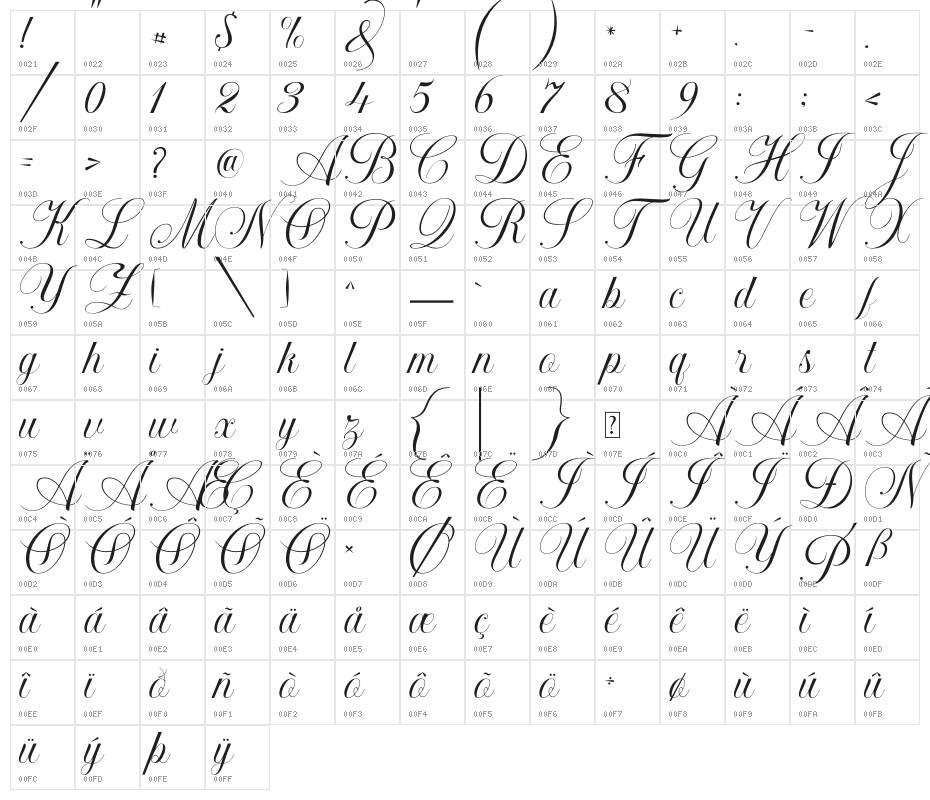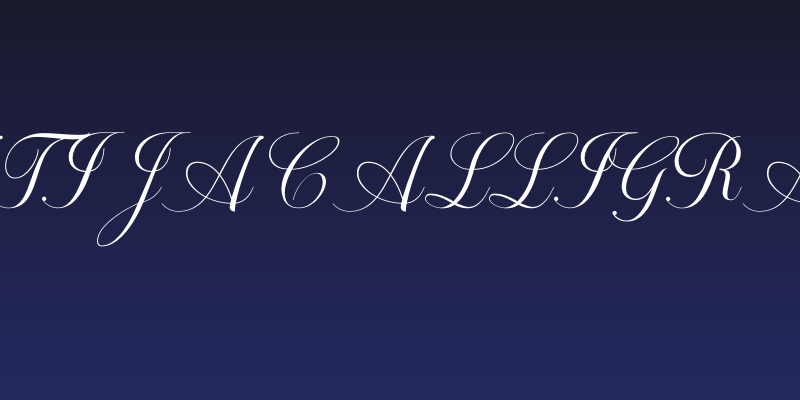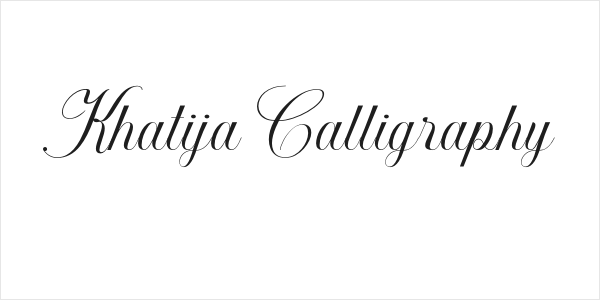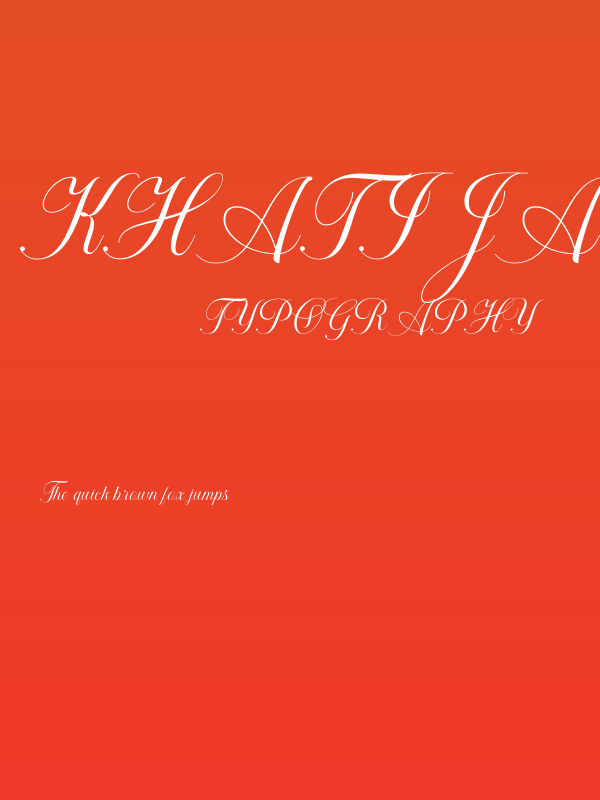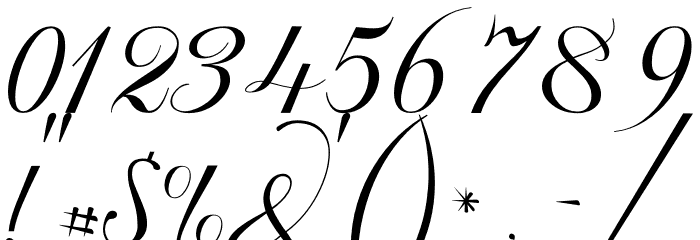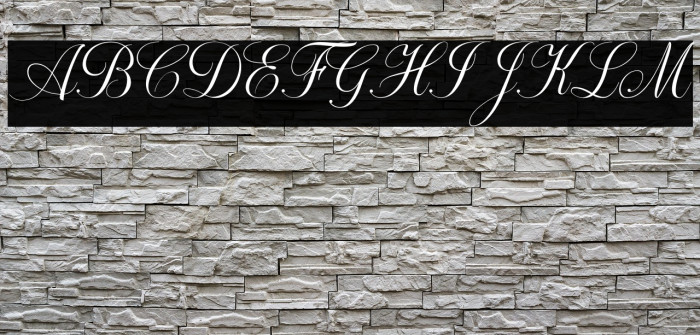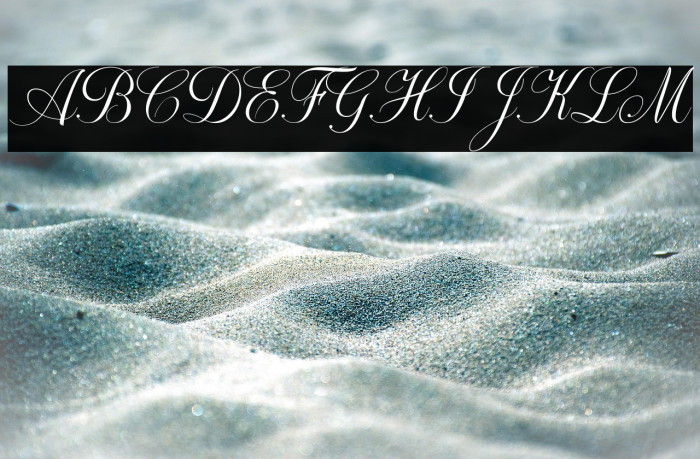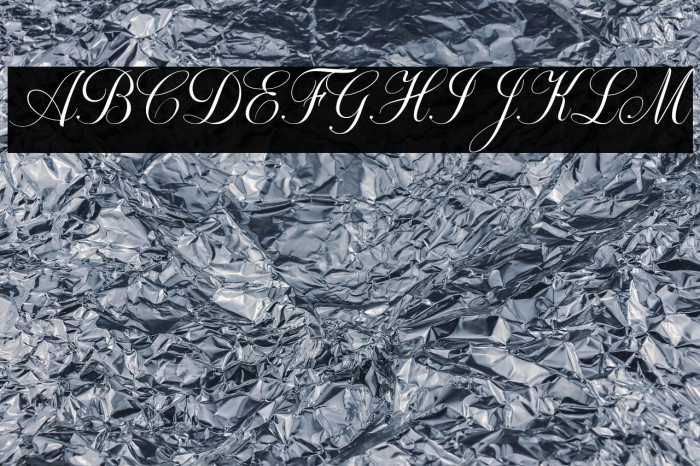
Khatija Calligraphy Font
Khatija Calligraphy Description
This elegant calligraphy font features flowing, interconnected strokes that exude a sense of sophistication and grace. The uppercase letters are ornate, with intricate loops and flourishes that add a decorative touch. The lowercase letters maintain a consistent style, with smooth curves and a slight slant, enhancing readability while preserving the artistic flair. The numerals are equally stylish, with a harmonious balance between form and function. Special characters are thoughtfully designed to complement the overall aesthetic, making this font suitable for a variety of creative applications.
| Proposed Projects | Ideal for wedding invitations, elegant branding, greeting cards, and high-end product packaging. |